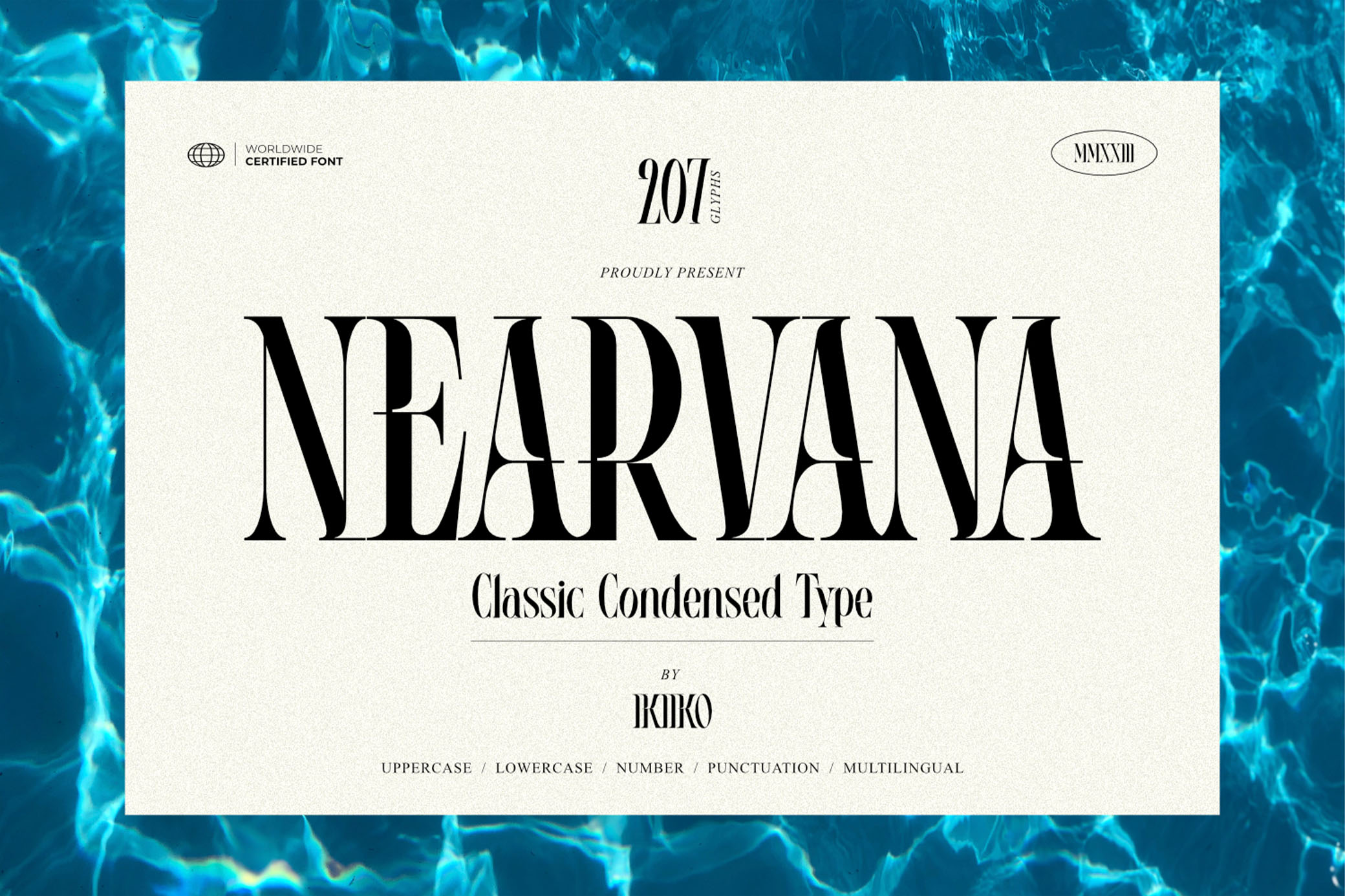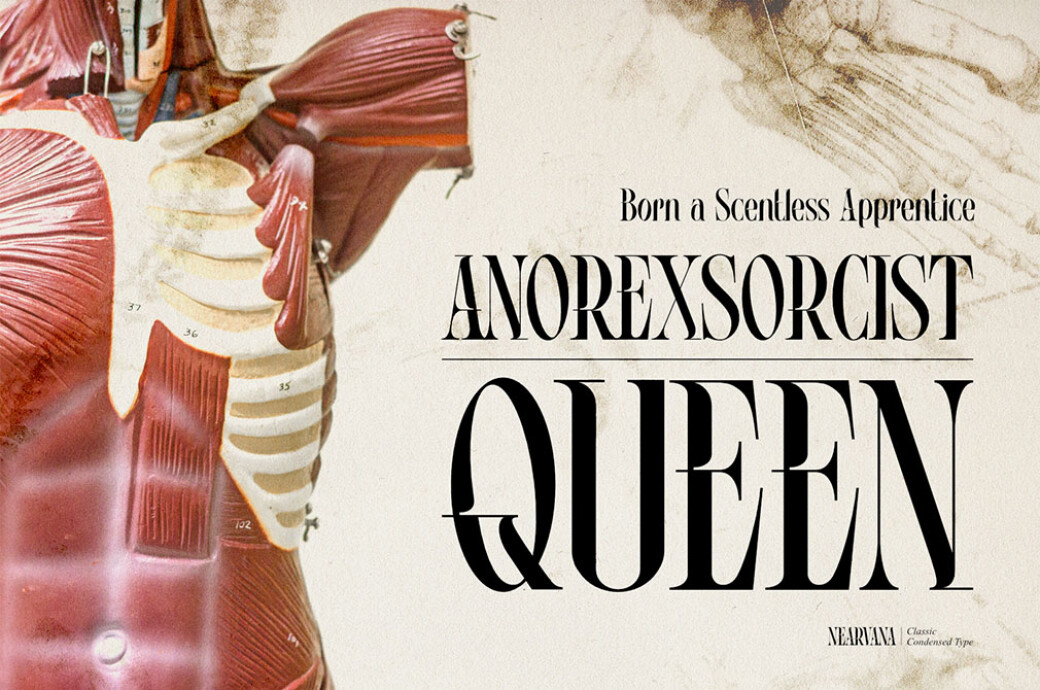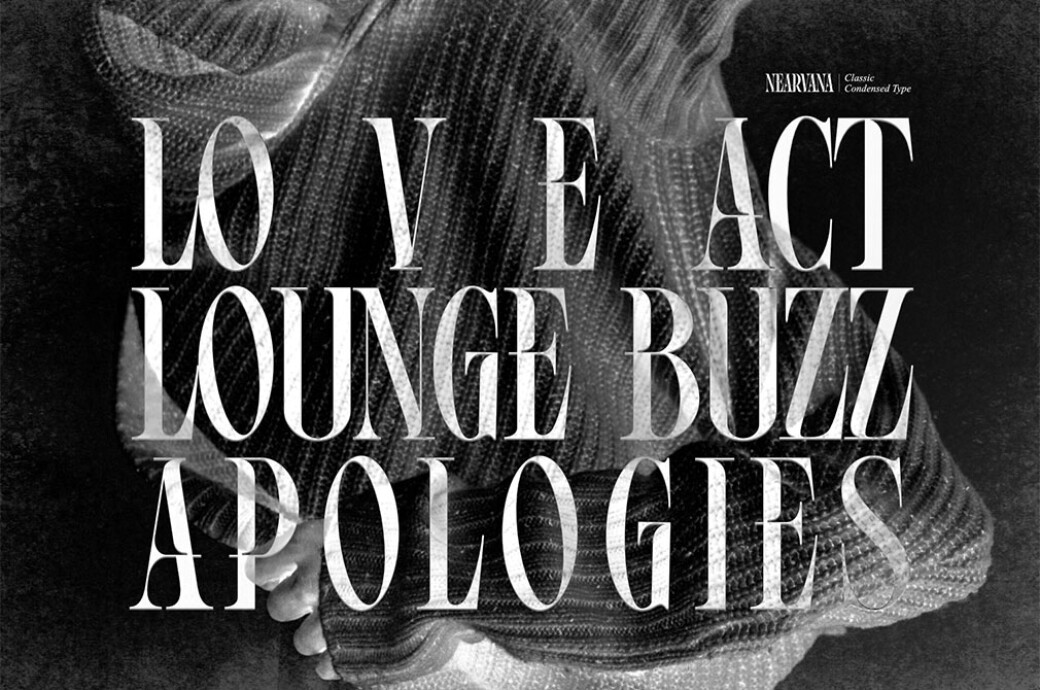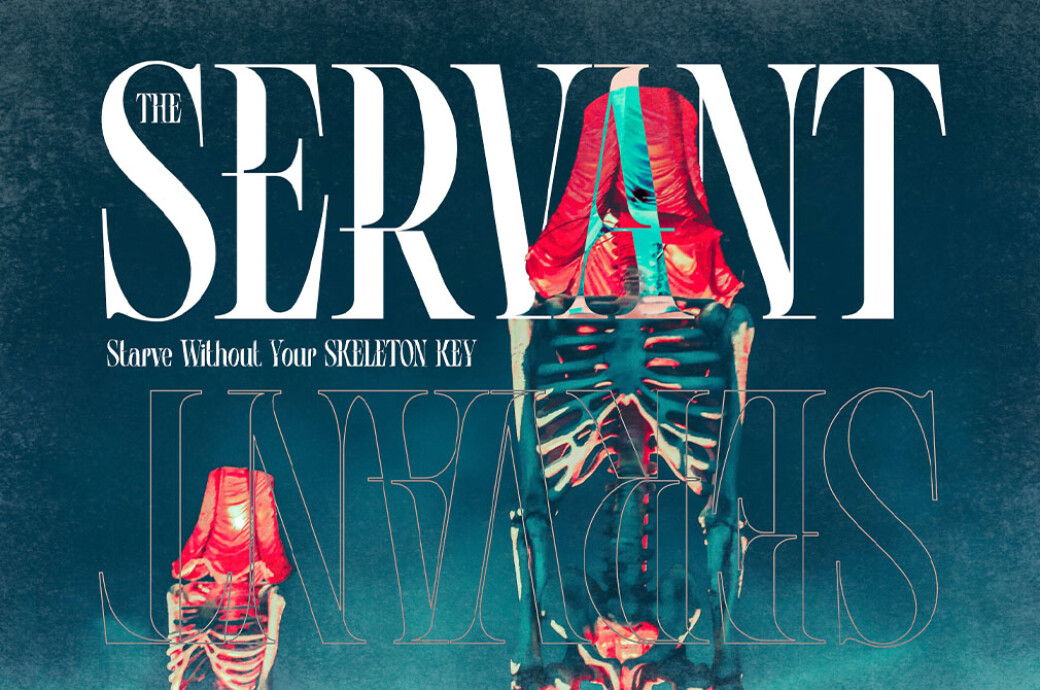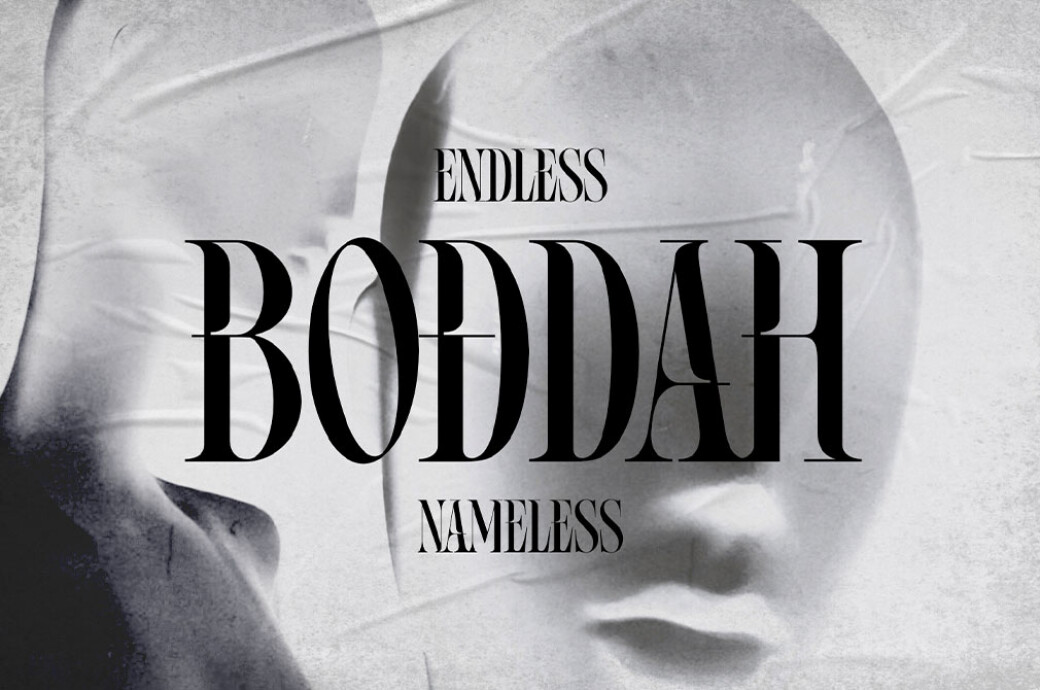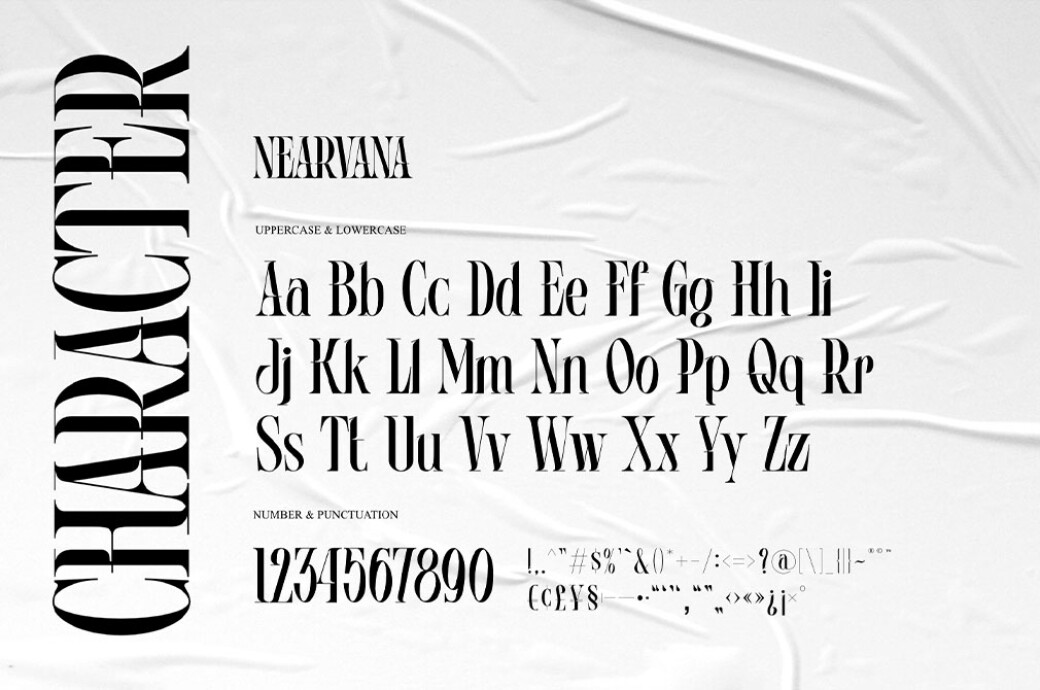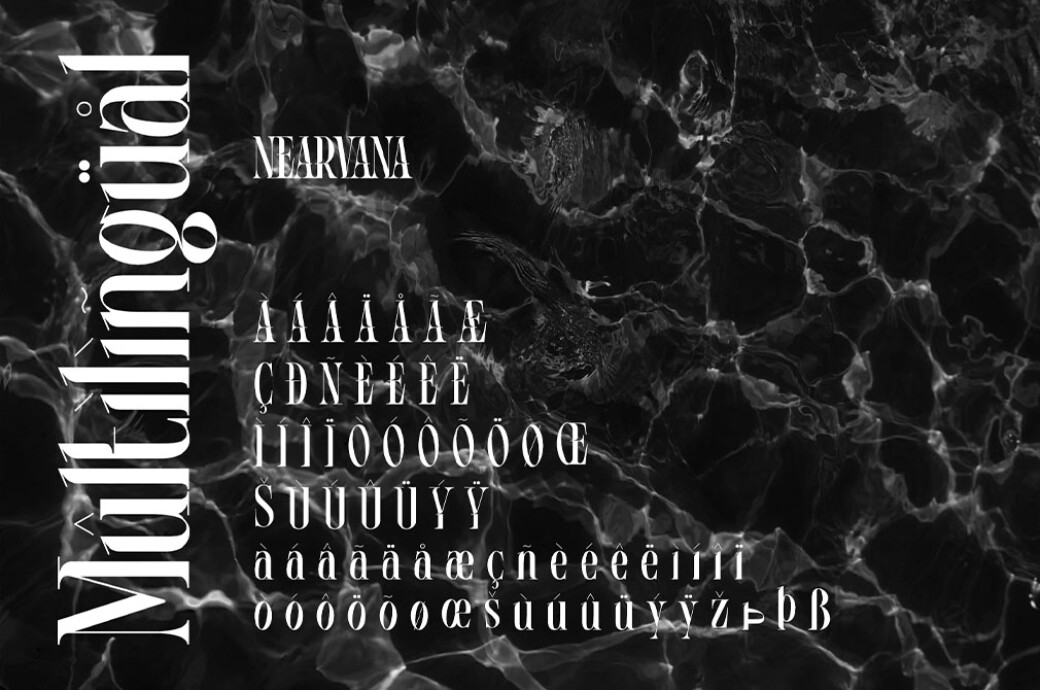
Nearvana Classic Condensed Font
This font was inspired by Nirvana, a famous band name with an iconic logo. Here, their old-school condensed type received a psychedelic touch.With thin forms and sharp lines, this typeface conveys a timeless, masculine, and elegant look. Nearvana was developed with a unique decorative style, simple but without losing the distinctive character that evokes nostalgia and authenticity. This typeface includes a complete set of letters, international characters, punctuation, and numbers.